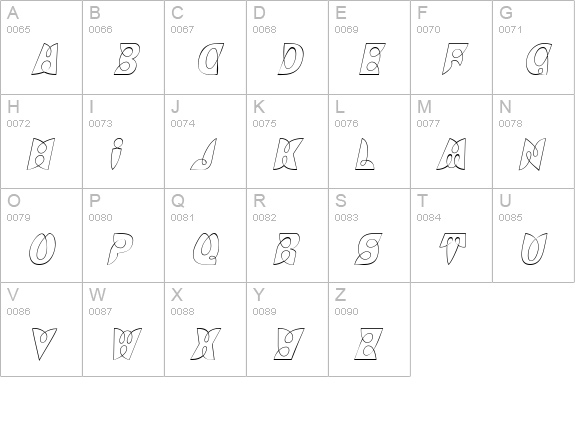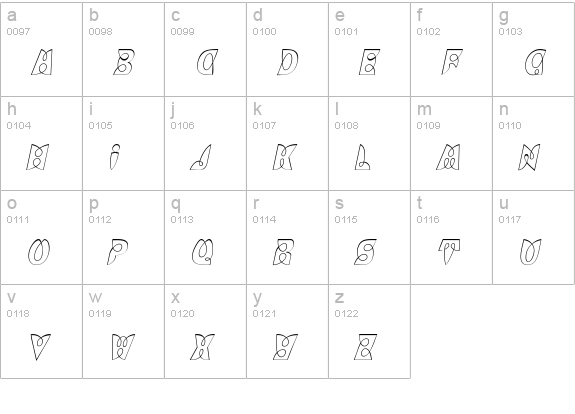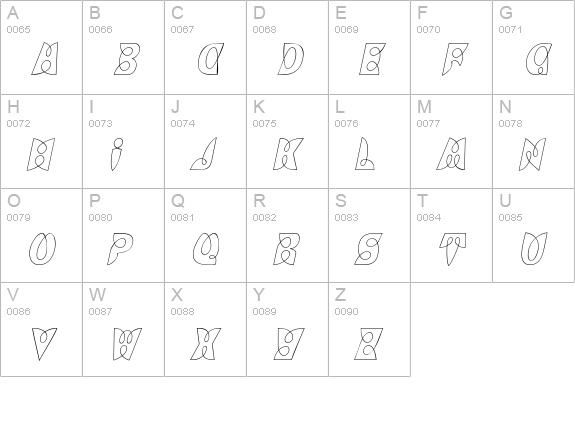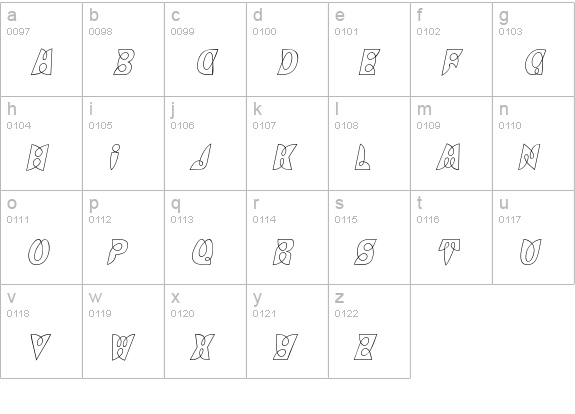
BrashCapsOutline Italic Font Details
BrashCapsOutline Italic is a distinctive, italic variant in the BrashCapsOutline typeface family \xE2\x80\x94 well suited to design and typography projects.
BrashCapsOutline Italic font is a bold and dynamic typeface that exudes confidence and personality. Its sleek outlines and slanted edges give it a modern and edgy look, making it perfect for headlines, logos, and other design projects that require a touch of attitude. The italicized style adds a sense of movement and flair to the text, making it stand out and grab attention. And the best part? BrashCapsOutline Italic font is available for free download at FontsMarket.com! This means you can add this stylish and eye-catching font to your collection without breaking the bank. Whether you're a graphic designer looking to spice up your projects or a content creator in need of a fresh look for your branding, BrashCapsOutline Italic font is a versatile and exciting choice that won't cost you a dime. Download it today and let your creativity shine with this bold and expressive typeface.